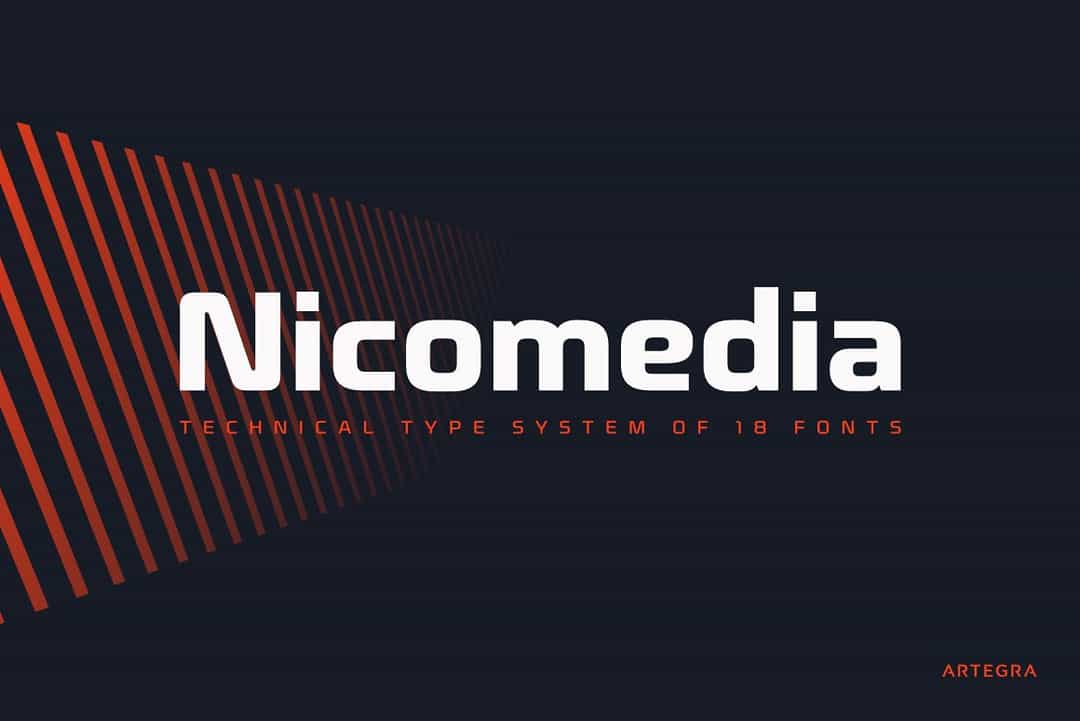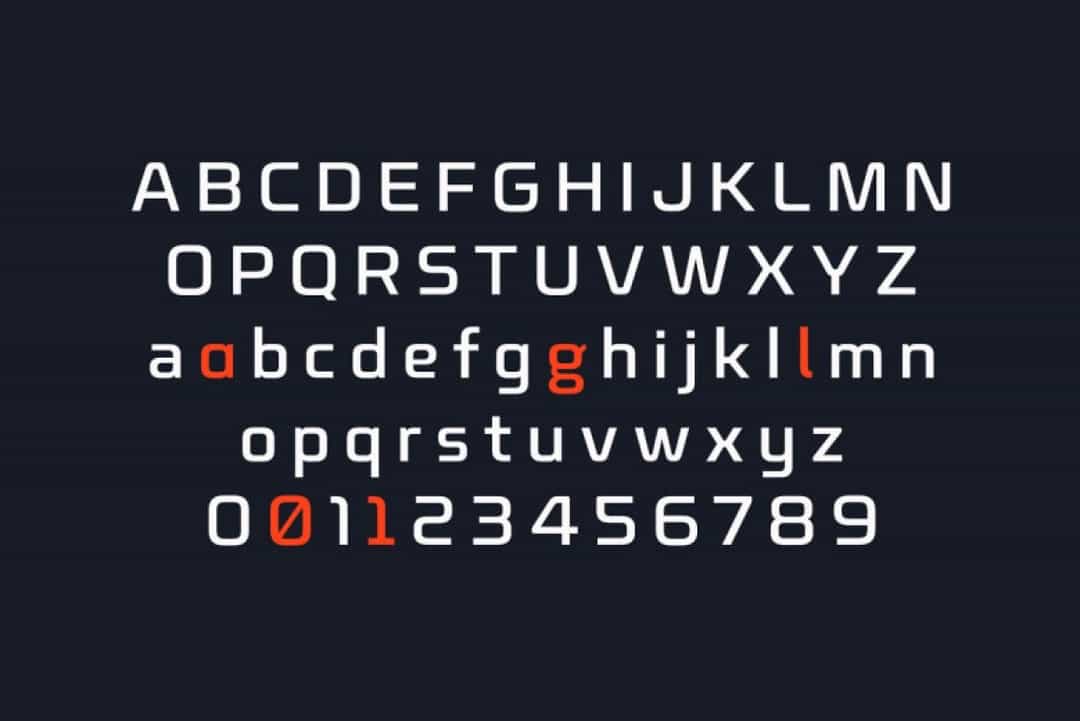
Nicomedia can be described as a modern sans-serif font family with a timeless, sophisticated appearance, perfectly embodying our technologically advanced industrial age. From black to thin it has 18 fonts that span nine weights each with authentic italic counterparts; accommodating 529 glyphs giving support for all languages using Latin script.